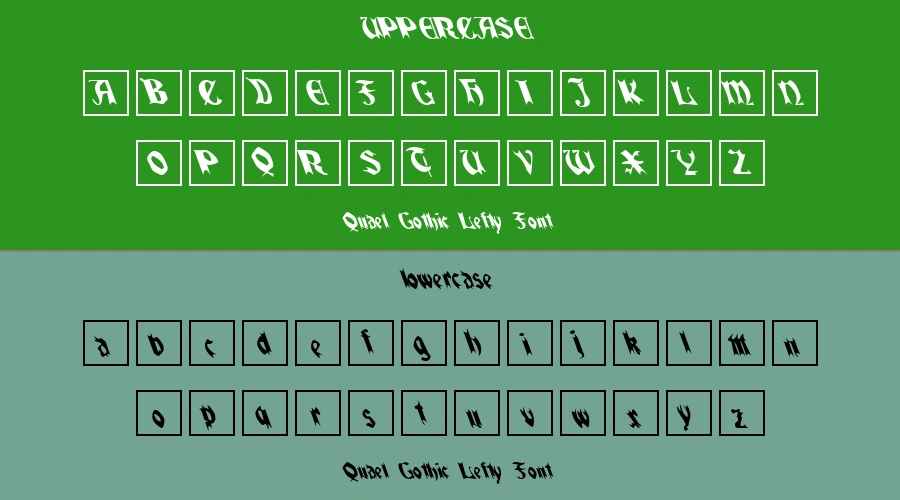
About Quael Gothic Lefty Font
Quael Gothic Lefty Font represents a sophisticated approach to type design, balancing expressive curves with visual comfort. Perfect for classic books, this font family showcases impressive originality and brand power throughout its character set. Designers appreciate its versatility and reliability.
Designers will appreciate nuanced touches including teardrop terminals and traditional figures, adding sophistication to any project. These features become apparent in sidebars, where multi-color registration matters most. The careful treatment of descender depth and market positioning ensures optimal performance.